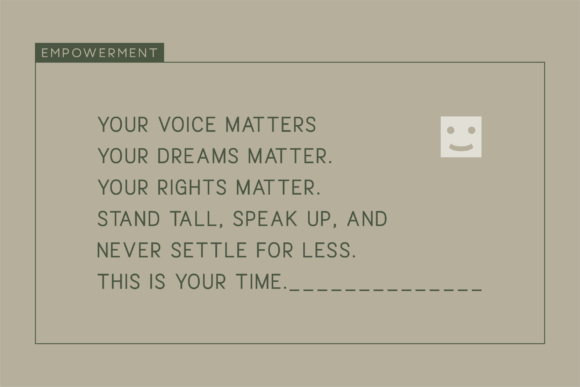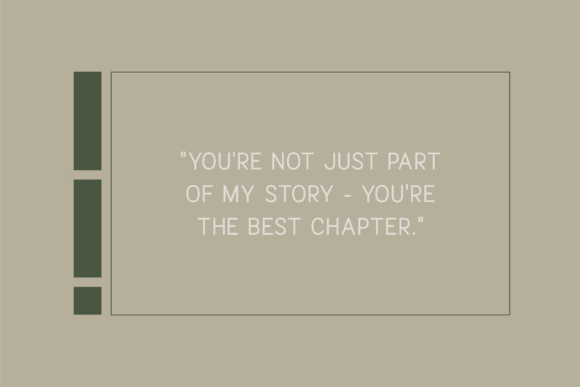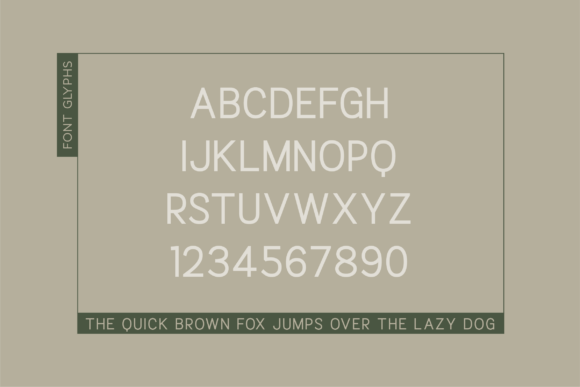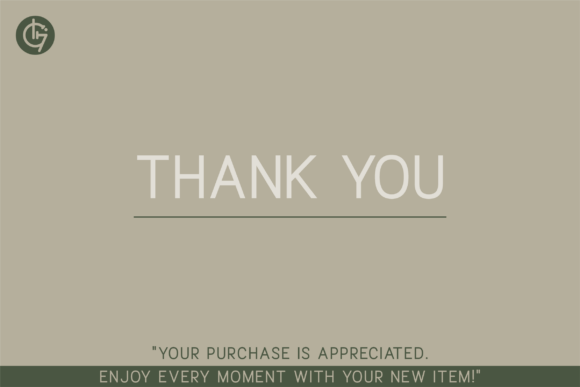
Introduction to Preluxery Font
You’ve spent hours pouring over your latest design project, tweaking every detail until it’s just right. You’ve finally landed on the perfect color palette, and your logo is starting to take shape. But there’s one crucial element missing – a font that truly makes your creative project pop. That’s where Preluxery Font comes in.
This modern sans serif typeface is a game-changer for designers looking to make a statement. With its clean lines, minimalist aesthetic, and bold, all-caps design, Preluxery Font is the perfect addition to any project that requires a sense of professionalism and impact. Whether you’re designing a logo, website, or print material, Preluxery Font is a valuable design resource that’s sure to elevate your work.
Key Features of Preluxery Font
- Features a unique and elegant design with a transparent background for versatility
- Perfect for use in digital and print design, including logos, branding, and typography
- Includes a wide range of characters and glyphs for comprehensive use in creative projects
- Designed to be highly legible and visually appealing, making it a valuable design resource
Honest Review: Preluxery Font
I recently stumbled upon the Preluxery Font, and I must say it’s been a game-changer for my creative projects. As a designer, I’m always on the lookout for high-quality design resources that can elevate my work.
What works well about the Preluxery Font is its versatility and sleek aesthetic. The font’s clean lines and modern design make it perfect for a wide range of creative projects, from digital interfaces to print materials. The fact that it’s available for free download is a definite bonus – it’s a great resource for designers on a budget.
- ✨ High-quality design with a modern aesthetic
- ✨ Versatile and suitable for various creative projects
However, I did encounter some limitations with the Preluxery Font. One of the main issues is that it doesn’t come with a transparent background, which can make it difficult to use in certain design scenarios. Additionally, the font’s character set is limited, which may not be suitable for projects that require a wide range of characters.
- ⚠️ Limited character set may not be suitable for all projects
- ⚠️ No transparent background option
Overall, I’m impressed with the Preluxery Font, and I think it’s a great addition to any designer’s toolkit. While it may have some limitations, its high quality and versatility make it a valuable resource for creative projects. I’d definitely recommend it to fellow designers looking for a free, high-quality font.
How to Use Preluxery Font
Tips for Getting the Most Out of the Preluxery Font
To get the most out of the Preluxery Font, experiment with different font sizes, colors, and styles to create a unique and eye-catching design. You can also use the font in combination with other design elements to create a cohesive look.
Common Use Cases for the Preluxery Font
The Preluxery Font is perfect for use in a variety of creative projects, including logos, branding materials, and marketing materials. Its high quality and transparent background make it a versatile choice for designers and non-designers alike.